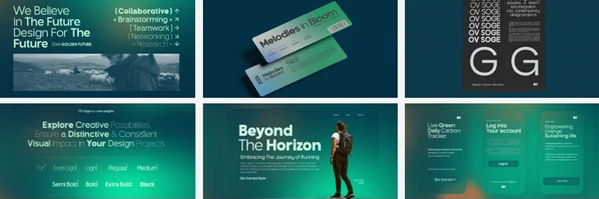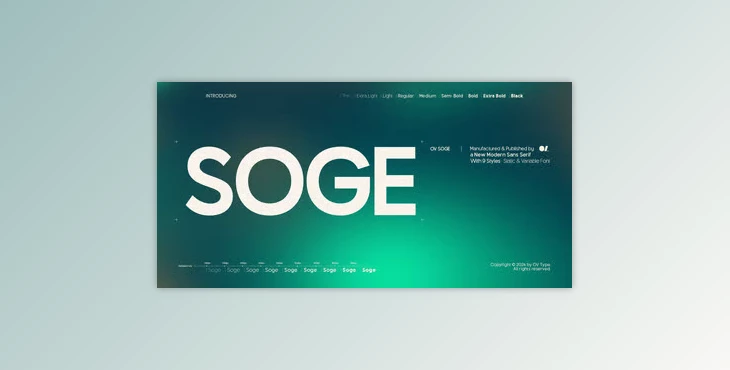
The OV Soge Sans Serif Font Family has been upgraded to version 2.000. Take your design projects to the next level with this comprehensive release that includes user-inspired changes!
- Final Release Improved Kerning- Improved kerning means better readability and aesthetically pleasing balance
- Added Alternates- New stylish alternates mean more flexibility in your projects without sacrificing time on new styles
- Weight Improvements- All weights adjusted for consistency and polished appearance